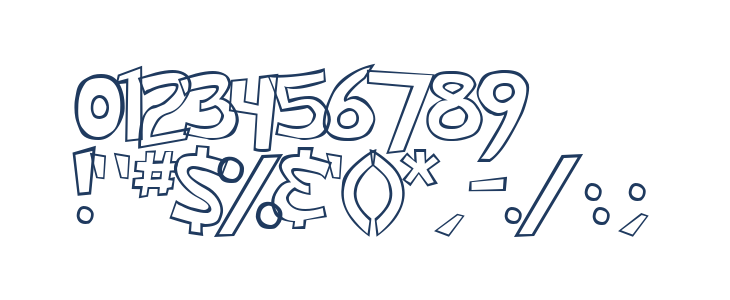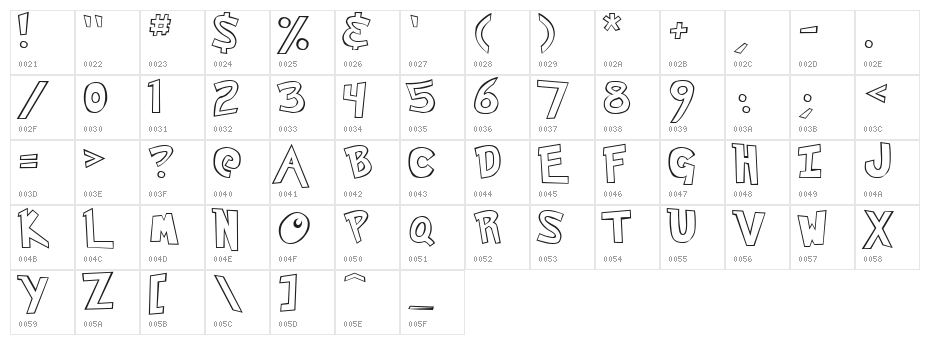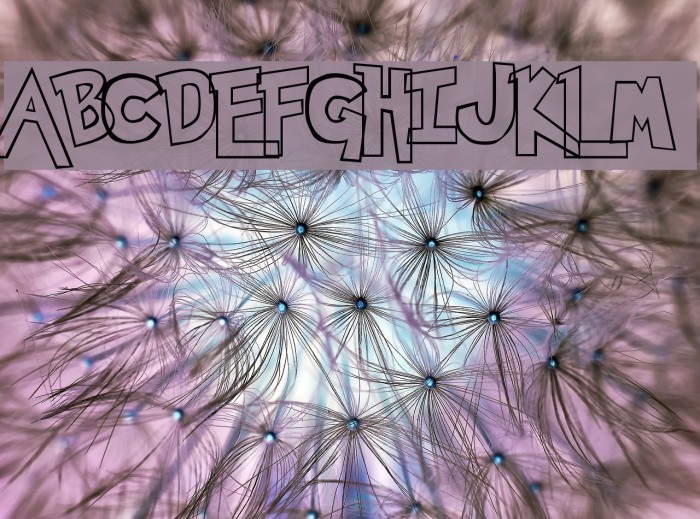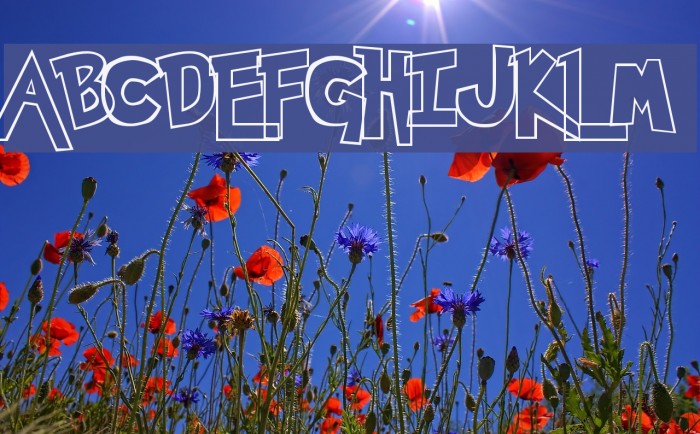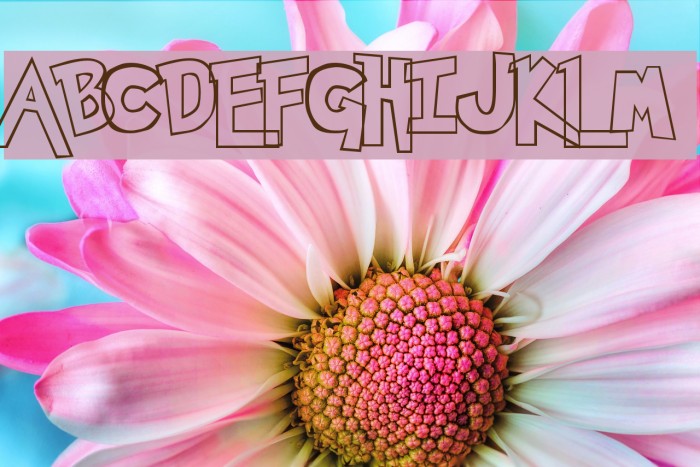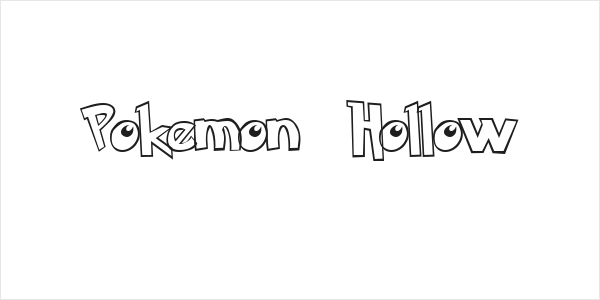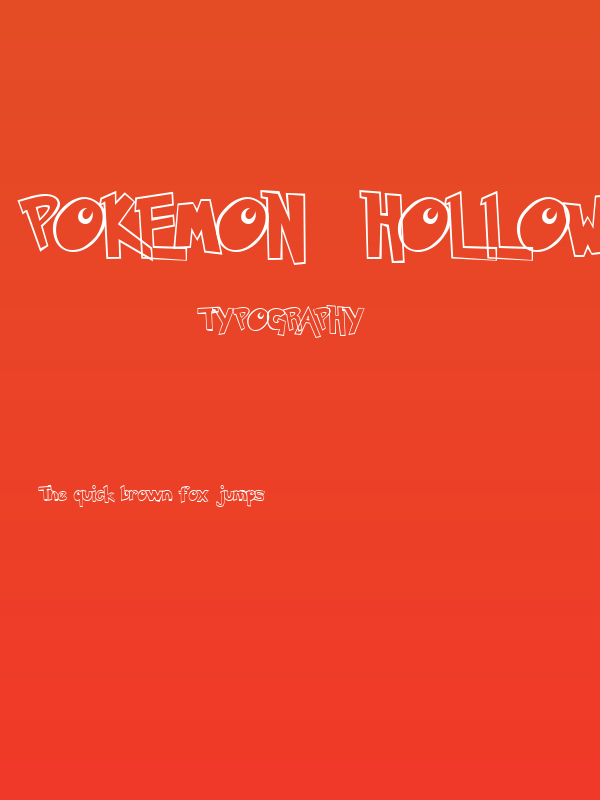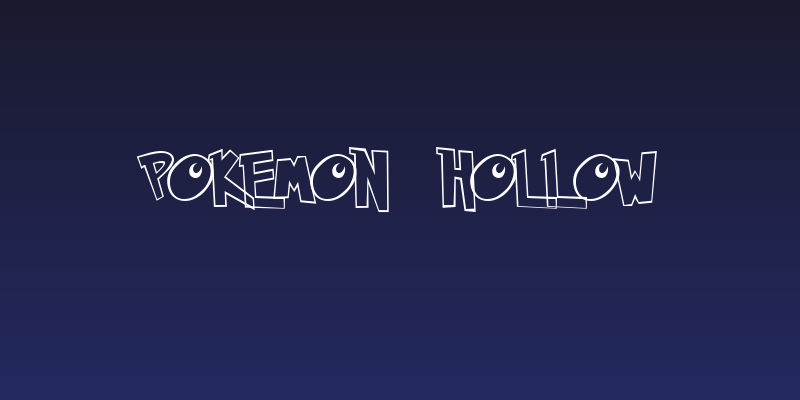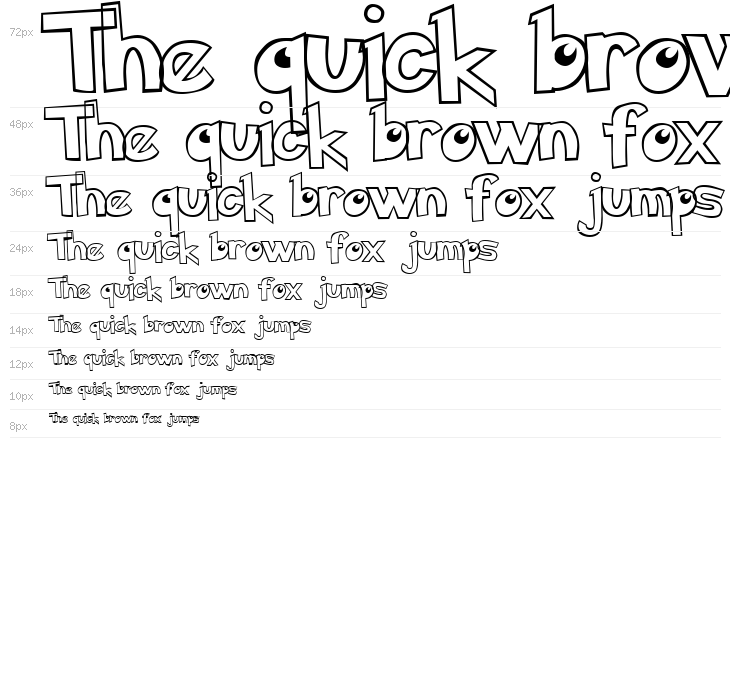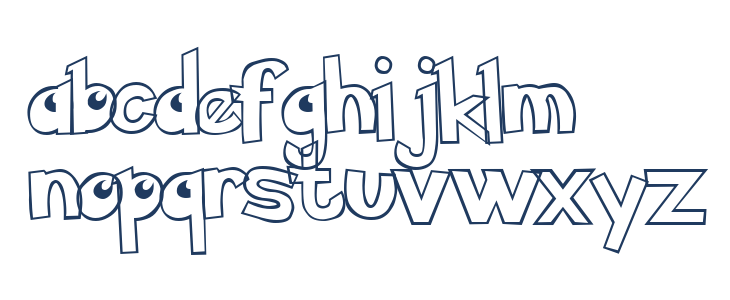
Pokemon Hollow Font
Pokemon Hollow Description
This playful and bold font features a hollow, outlined style that captures a sense of fun and adventure. The uppercase and lowercase letters are designed with a cartoonish flair, making them perfect for projects that require a lively and energetic feel. The numbers and special characters maintain the same whimsical aesthetic, ensuring consistency across all text elements. The font's unique design is characterized by its thick outlines and exaggerated curves, which add a dynamic and eye-catching quality to any text. Its informal and friendly appearance makes it ideal for children's projects, games, or any creative work that seeks to convey excitement and imagination.
| Overall Style | Playful, Cartoonish |
| Proposed Projects | Ideal for children's books, game titles, posters, and creative branding. |